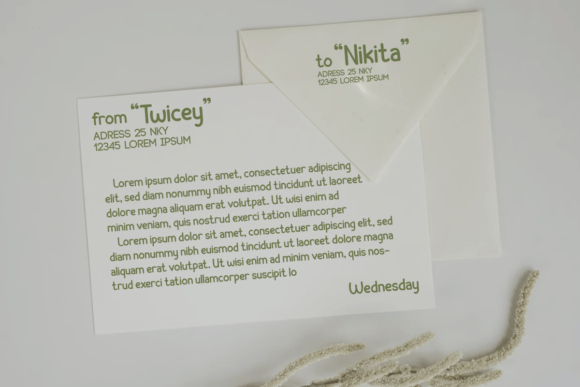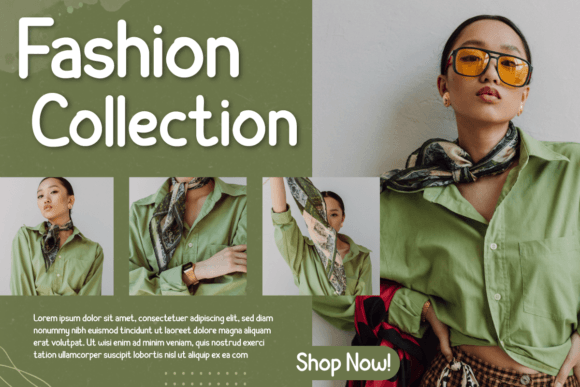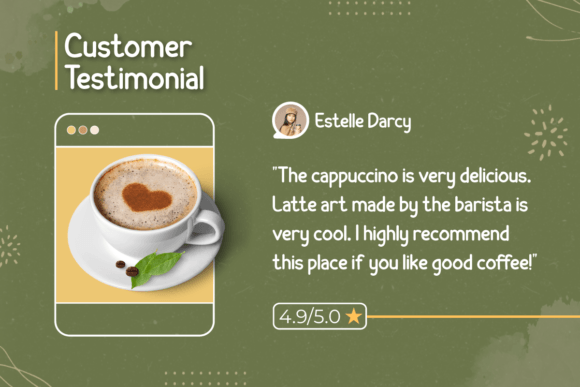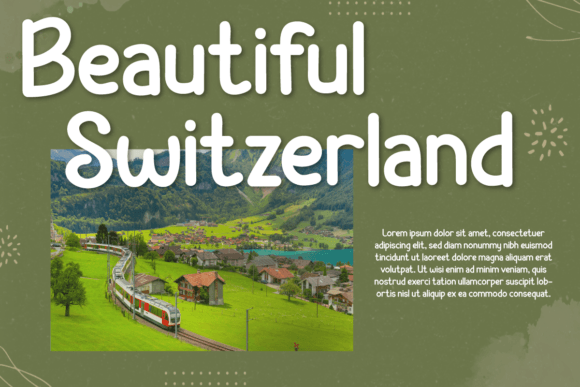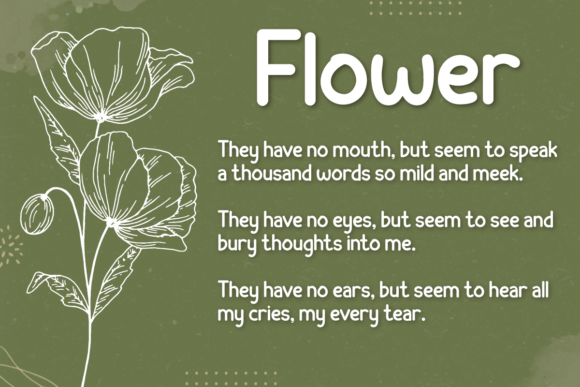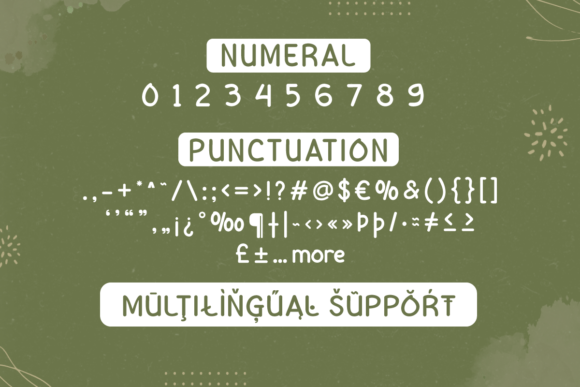
Cyhiru Font: Elevate Your Designs with a Personal Touch
In the world of digital design, finding the perfect font that adds a personal and distinctive touch to your creative projects can be a daunting task. However, look no further than Cyhiru Font, a game-changer in the realm of typography. This versatile font seamlessly blends the warmth of handwritten text with a modern aesthetic, making it an ideal choice for a wide range of applications, from invitations and posters to branding materials and more.
The Unique Charm of Cyhiru Font
Cyhiru Font boasts a unique charm that sets it apart from other fonts. Its elegant and fluid strokes evoke a sense of warmth and personality, making it perfect for designers and crafters looking to add a human touch to their work. Whether you’re creating wedding invitations, designing a logo, or crafting a social media post, Cyhiru Font effortlessly captures attention and leaves a memorable impression.
Key Features of Cyhiru Font
- Handwritten with a Modern Twist: Cyhiru Font combines the authenticity of handwritten text with a modern aesthetic, making it perfect for a wide range of design applications.
- Versatile and Adaptable: This font is suitable for various design projects, including invitations, posters, branding materials, and more.
- Elegant and Readable: Cyhiru Font features elegant and fluid strokes that make it easy to read, even in smaller sizes.
- Attention-Grabbing: The unique charm of Cyhiru Font ensures that your designs stand out and leave a lasting impression.
Cyhiru Font is a perfect choice for designers and crafters looking to elevate their work with a personal touch. Whether you’re a professional designer or a DIY enthusiast, this font offers a wide range of creative possibilities. Use it to:
- Create stunning wedding invitations and save-the-date cards
- Design eye-catching posters and flyers
- Develop a unique brand identity with custom logos and typography
- Craft engaging social media posts and blog headers
Tips for Using Cyhiru Font
To get the most out of Cyhiru Font, here are some tips to keep in mind:
- Experiment with Font Sizes: Cyhiru Font looks great in various sizes, from large headings to smaller body text.
- Pair with Complementary Fonts: Combine Cyhiru Font with other fonts to create a unique and visually appealing typography.
- Play with Colors: Take advantage of Cyhiru Font’s versatility by experimenting with different colors and textures.
Cyhiru Font is your gateway to infusing a personal and distinctive touch into your creative projects. With its unique blend of handwritten warmth and modern aesthetic, this font is perfect for designers and crafters looking to elevate their work. Whether you’re creating invitations, posters, branding materials, or more, Cyhiru Font is sure to capture attention and leave a memorable impression. So why wait? Discover the creative possibilities of Cyhiru Font today and take your designs to the next level!